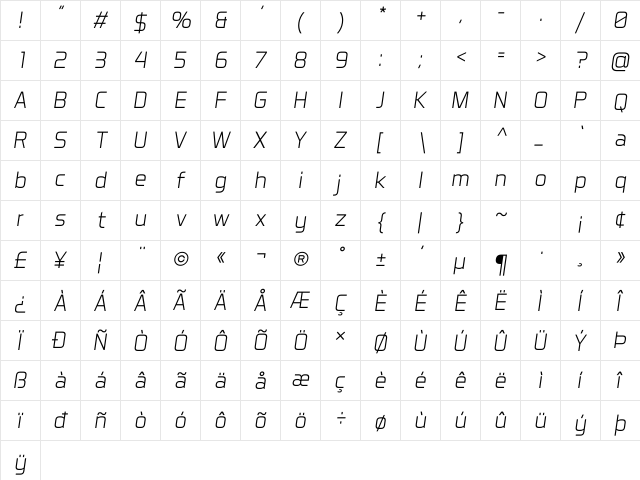
Aero Matics Light Italic Font Preview
| Designer | Jayvee D. Enaguas (GrandChaos) |
Design Context for Aero Matics Light Typeface
Aero Matics Light takes a measured approach to typography — its balanced proportions and neutral character make it a reliable workhorse for both digital and print work. Its italic angle brings a sense of urgency and motion to the letterforms. Its slender proportions lend an understated elegance to any composition.
Pro Tip: Try Aero Matics Light for annotation and caption copy alongside an upright companion — the contrast in angle creates a dynamic but ordered typographic system.